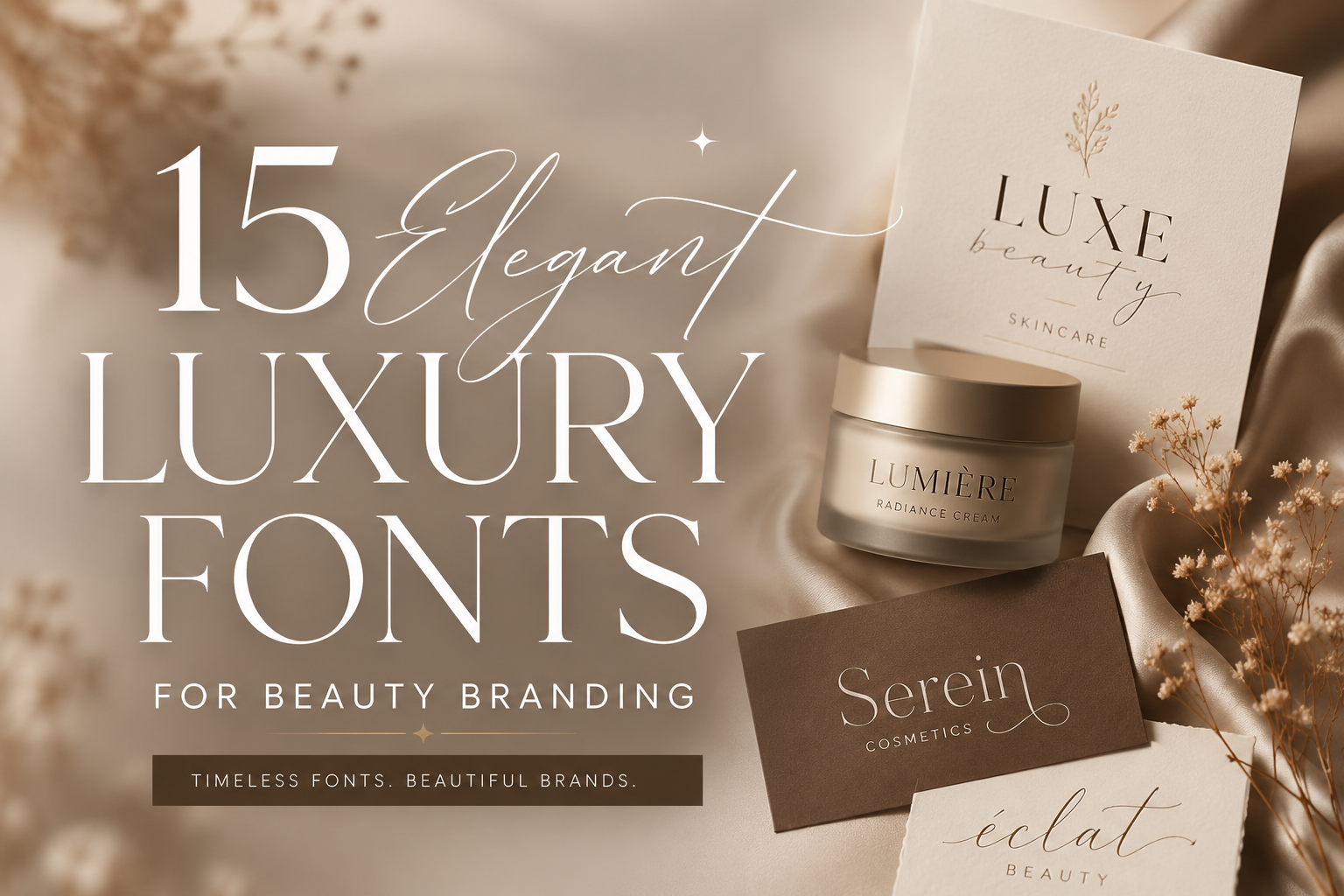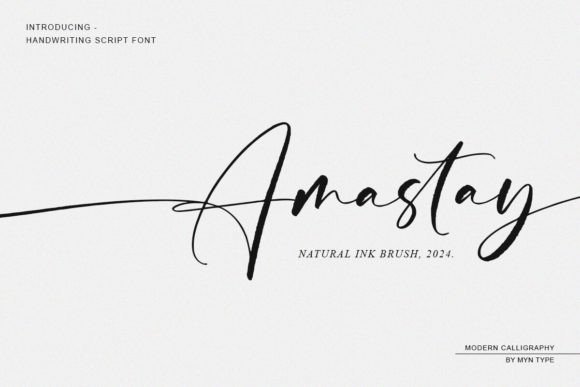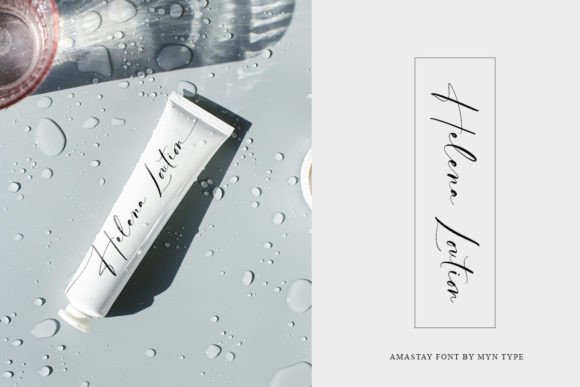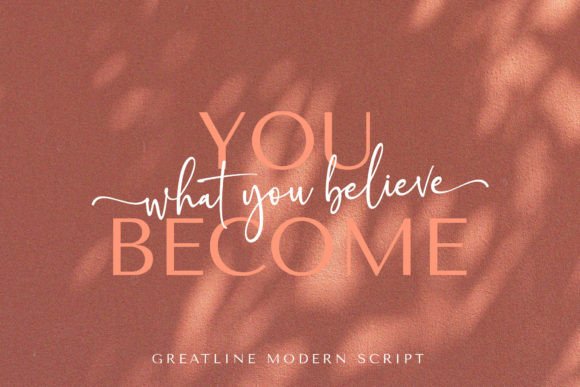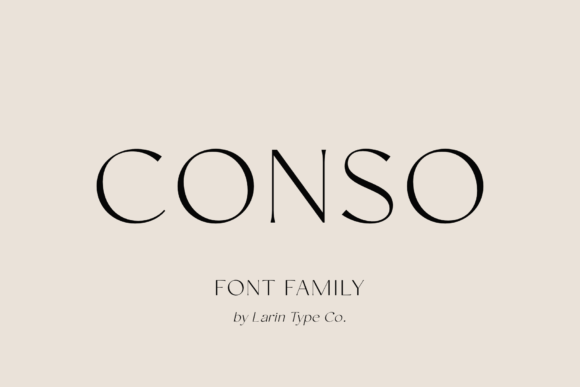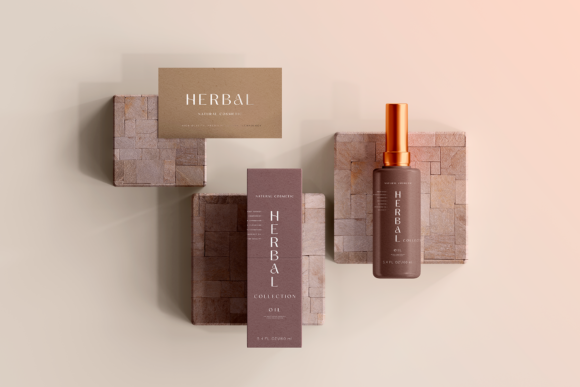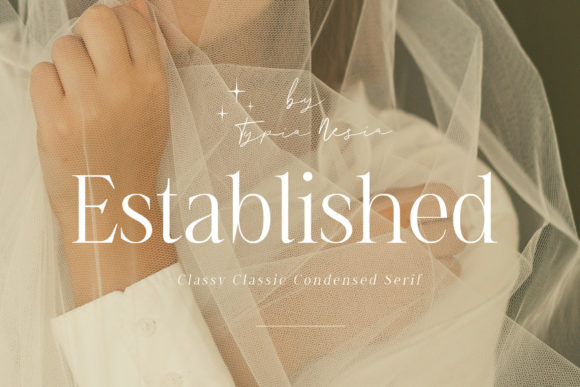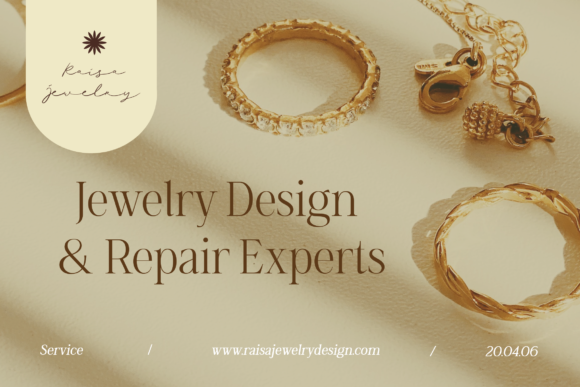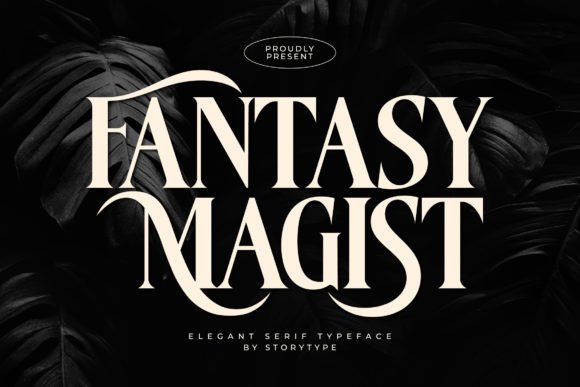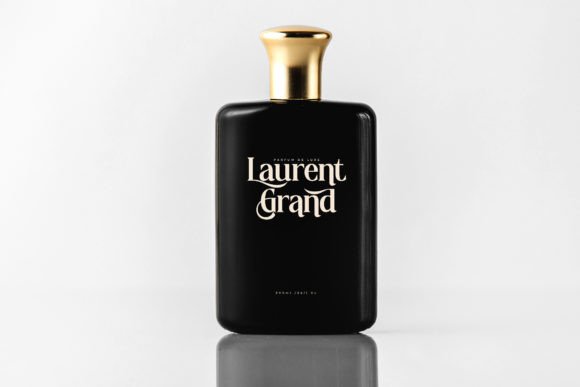
15 Elegant Luxury Fonts for Beauty Branding
Luxury fonts for beauty brands do more than make a logo look attractive—they shape how customers perceive the entire brand. Elegant typography instantly communicates quality, sophistication, and trust, whether it appears on skincare packaging, cosmetic labels, luxury boxes, or social media. The best luxury fonts for beauty brands remain graceful at every size, from bold storefront branding to the smallest product details.
In this collection, you’ll discover 15 carefully selected luxury fonts for beauty brands, organized by their ideal purpose. Whether you’re designing a timeless logo, premium packaging, elegant signature elements, or a complete visual identity, these fonts make it easier to choose the right style for your project.
How to choose luxury fonts for beauty brands
A successful beauty brand often combines multiple font styles to create a polished and recognizable identity. Each typeface plays a different role within the branding system.
• For logos: Choose a refined serif font that communicates elegance while remaining highly legible across packaging, websites, and marketing materials.
• For decorative accents: Flowing script fonts are ideal for signature collections, product names, or limited-edition packaging that needs a luxurious touch.
• For approachable branding: Soft handwritten fonts help create a warm, personal connection, making beauty products feel more inviting and authentic.
• For complete branding systems: Font duos that include both a serif and a script provide a cohesive solution for logos, packaging, advertising, and social content.
Luxury serif fonts for beauty brand logos
Your logo is often the first impression customers have of your beauty brand. These luxury fonts for beauty brands feature elegant serif designs with balanced proportions, making them ideal for premium wordmarks that look sophisticated on everything from skincare bottles and perfume packaging to cosmetic labels and high-end branding materials.
Olive & Citrus Font
Olive & Citrus is a modern serif typeface that perfectly balances classic elegance with contemporary sophistication. I love using it for branding, logos, magazines, editorial layouts, packaging, beauty projects, and social media graphics because its refined letterforms create a polished and luxurious visual identity. The timeless serif design is both versatile and stylish, making every project feel professional, elegant, and effortlessly memorable.
Healing Font
Healing Elegant Serif is a sophisticated serif typeface inspired by minimalist luxury branding, offering a timeless blend of elegance and modern simplicity. I love using it for logos, branding, brochures, invitations, editorial layouts, beauty packaging, advertising, website designs, and premium marketing materials because its refined letterforms create a polished and upscale look. The clean serif details and graceful proportions make every project feel luxurious, professional, and effortlessly stylish.
Lilac and Linen Font
Lilac and Linen is a chic monoline handwritten script font with smooth, flowing strokes that beautifully mimic natural handwriting. I love using it for branding, product labels, pantry labels, stickers, packaging, social media graphics, quotes, and lifestyle designs because its clean letterforms create a modern yet personal feel. The automatic ligatures and stylistic alternates add authenticity and effortless elegance, making every project look polished, friendly, and naturally handwritten.
Established Font
Established is a classy condensed serif font that blends timeless elegance with modern luxury. I love using it for premium branding, logos, fashion editorials, beauty packaging, magazines, invitations, book covers, stationery, boutique identities, and sophisticated advertising because its refined letterforms create a striking, high-end visual presence. The elegant condensed style is perfect for luxury-focused projects, adding a polished, fashionable, and effortlessly sophisticated touch to every design.
Fairy Dreams Font
Fairy Dreams is a minimalist modern serif font that combines clean elegance with beautifully crafted alternates and graceful swashes. I love using it for branding, logos, wedding invitations, editorial layouts, packaging, beauty projects, and social media graphics because its refined letterforms create a sophisticated yet effortless look. The stylish alternates and decorative swashes add a touch of personality and luxury, making every design feel timeless, elegant, and beautifully polished.
Conso Font
CONSO is an elegant modern sans-serif font family that combines high-contrast letterforms with exceptional readability. Featuring seven weights and matching italics, I love using it for branding, logos, packaging, advertising, editorial layouts, magazines, book covers, websites, and social media graphics because its versatile design adapts effortlessly to both headlines and body text. The included ligatures, glyphs, and multiple weights make CONSO a sophisticated choice for creating clean, contemporary, and professional designs with a premium look.